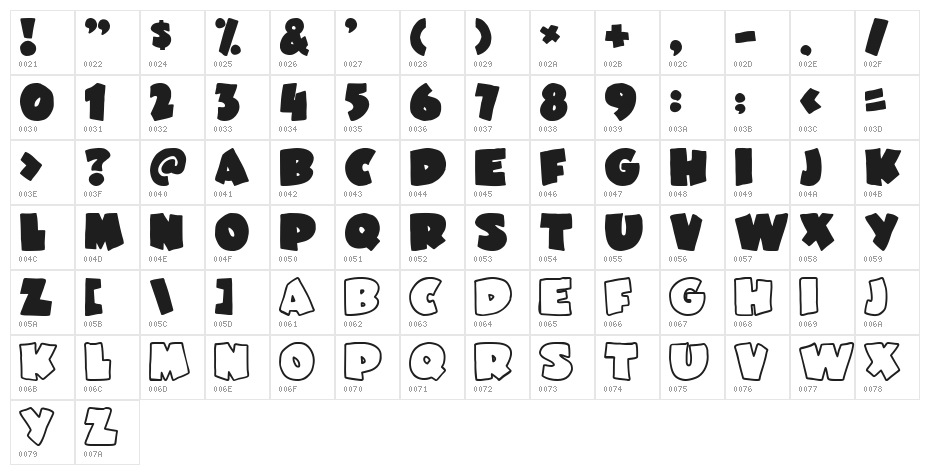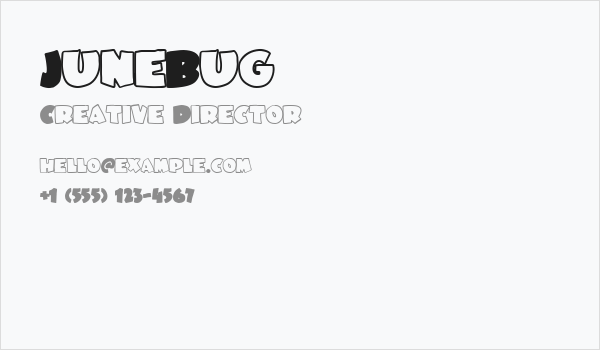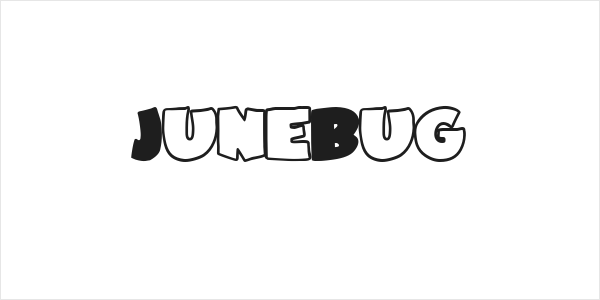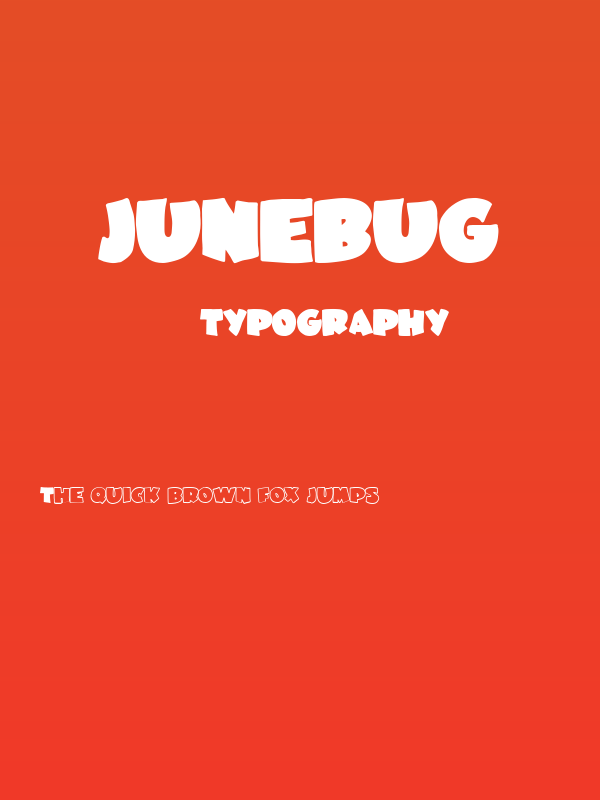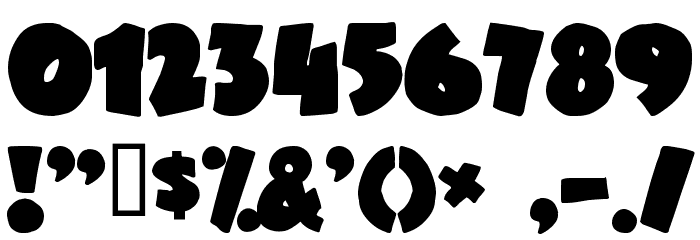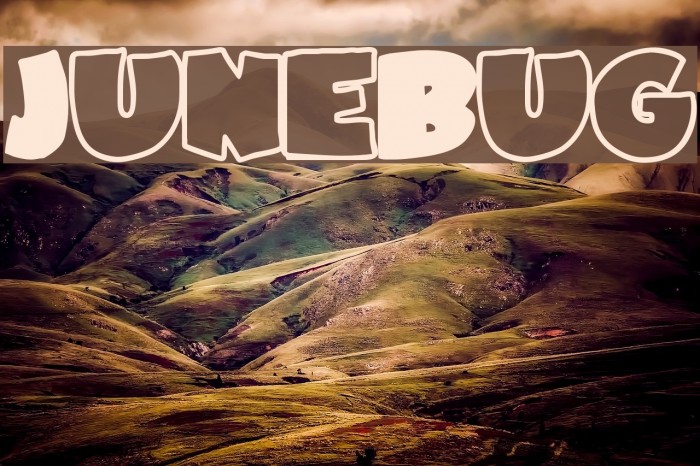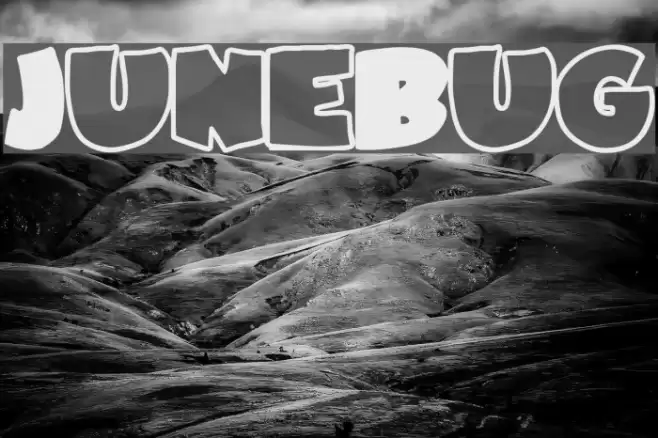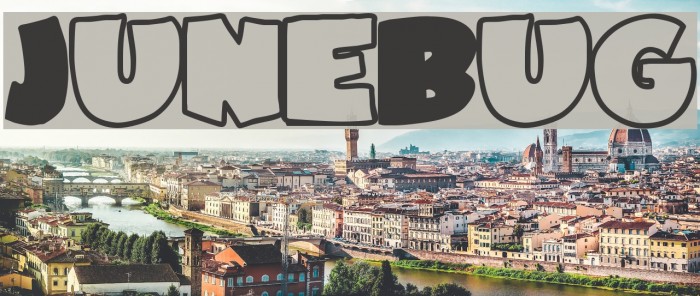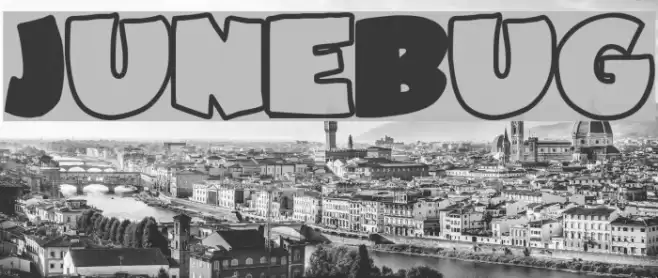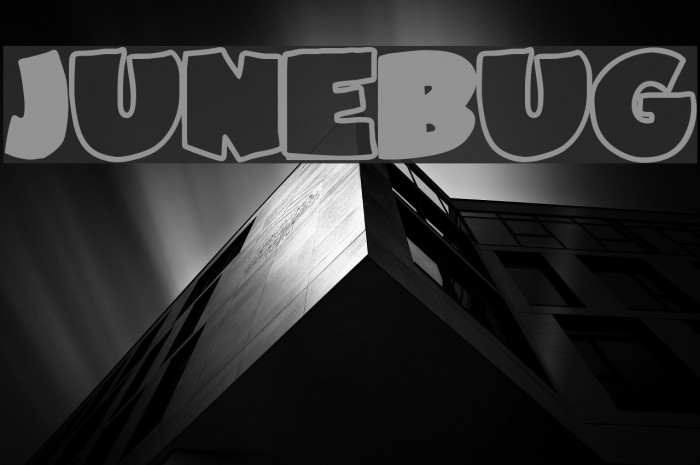
JuneBug Font
| Style général | Playful, Cartoonish |
| Projets proposés | Ideal for children's books, comic strips, playful branding, and party invitations. |